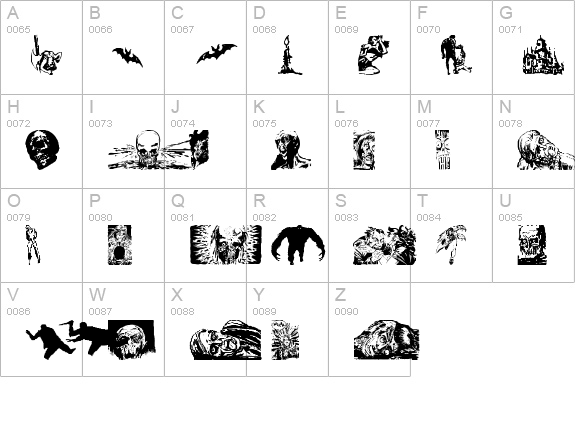
Horror Dingbats Eerie Edition font is a spine-chilling and macabre collection of symbols and icons designed to send shivers down your spine. This eerie edition features a haunting selection of enigmatic characters that are perfect for adding a touch of terror to your projects. From ominous skulls and creepy creatures to eerie patterns and mysterious symbols, this font is sure to evoke a sense of dread and unease. What makes Horror Dingbats Eerie Edition font even more enticing is that it is available for free download at FontsMarket.com. This means you can easily access this bone-chilling font and start incorporating its chilling elements into your designs without any cost. Embrace the darkness and unleash the horror with Horror Dingbats Eerie Edition font, the perfect choice for creating a spooky atmosphere in your projects.